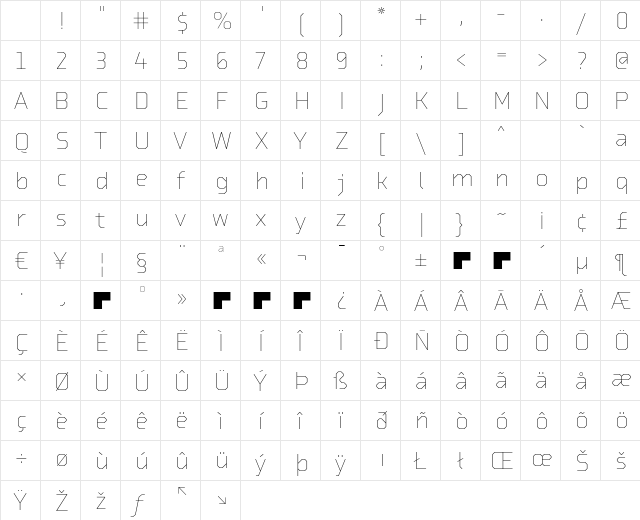
Complete Lingua Light glyph index. Displaying only characters natively supported by Lingua Light font.
Lingua is a composed and adaptable typeface that performs quietly and consistently across a wide range of design contexts. Its slender proportions lend an understated elegance to any composition.